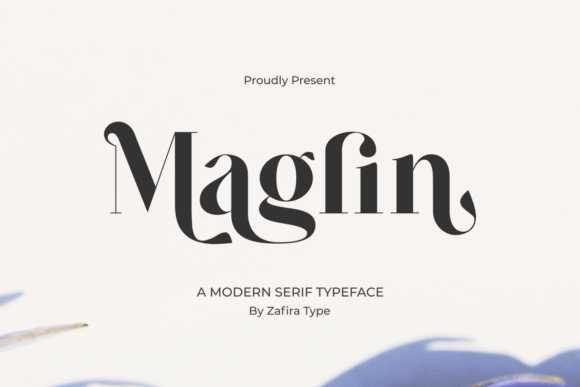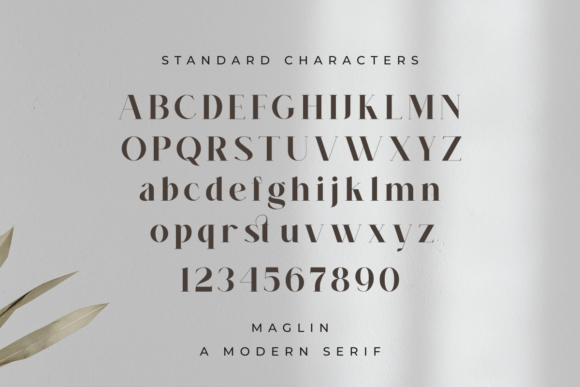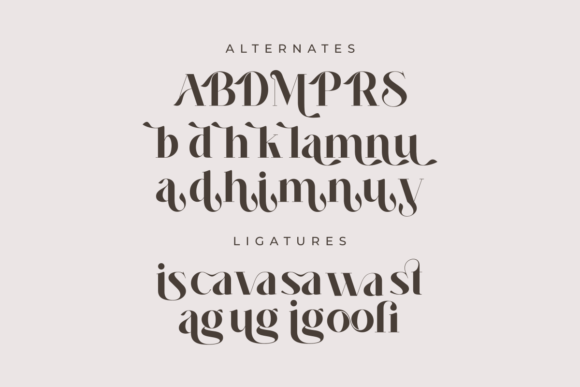
Maglin is a chic and cool serif font that offers an elegant and modern impression. With soft yet strong lines, this font combines traditional elements with a contemporary touch. Its balanced proportions and fine details make it well suited for a variety of design purposes, from print design to digital displays. Maglin has an eye-catching character while remaining easy to read, making it the perfect choice for design projects that require a combination of aesthetic beauty and functionality.
Maglin Serif Font
Designer, Publisher: Zafira Type